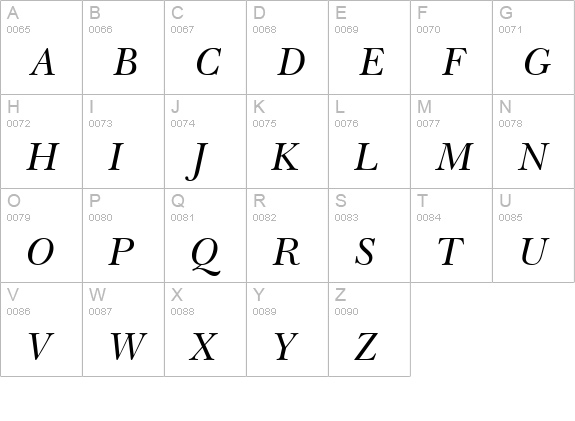
Baskerville Cyrillic Inclined Font Details
Baskerville Cyrillic Inclined font is a sophisticated and elegant typeface that brings a touch of classic charm to any design project. Its slanted style adds a dynamic flair, making it perfect for conveying a sense of movement and energy. The Cyrillic characters in this font maintain the timeless and refined look of the Baskerville typeface, while also providing support for languages that use the Cyrillic script. This font is not only visually pleasing but also highly versatile, making it suitable for a wide range of applications such as branding, editorial design, and more. Whether you're working on a book layout, a logo design, or a website, Baskerville Cyrillic Inclined font will elevate your project with its timeless appeal and modern flair. The best part is that Baskerville Cyrillic Inclined font is available for free download at FontsMarket.com. This means you can start using this beautiful typeface in your projects right away without any cost. Don't miss out on the opportunity to enhance your designs with the elegance and sophistication of Baskerville Cyrillic Inclined font – download it today and elevate your typography game!